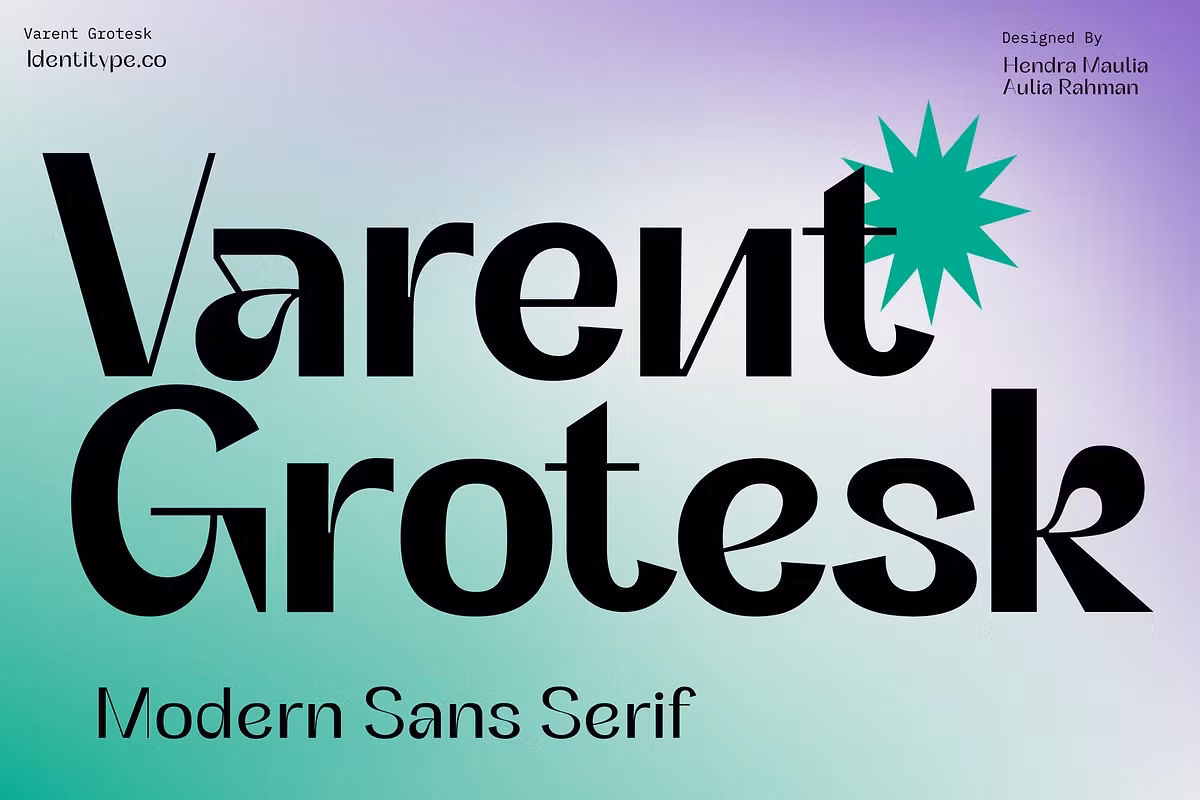
Varent Grotesk - Modern Sans Font Free Download is a sleek and versatile sans-serif typeface designed to bring a clean, contemporary feel to your designs. With its simple, geometric forms and balanced proportions, Varent Grotesk is perfect for branding, editorial design, web content, logos, and any project requiring a modern and professional aesthetic.
The font is crafted for legibility and flexibility, making it an excellent choice for both print and digital applications. Varent Grotesk includes uppercase and lowercase letters, punctuation, multilingual support, and works seamlessly across both Mac and Windows systems.